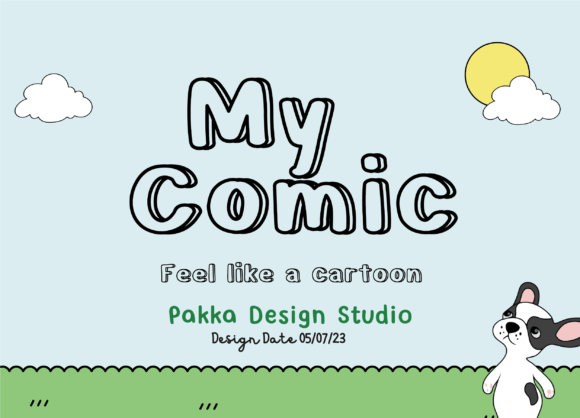
Introducing My Comic Font, the best font for fun flyers and more! Created by the talented Pakka Design Studio, this decorative font is a true gem that will captivate and engage your audience.
With an outline doodle style, My Comic Font effortlessly merges the simplicity of hand-drawn doodles with the whimsical essence of comic books. Each letter looks like it was sketched with playful outlines, giving your designs a fun and carefree vibe that is hard to resist.
This font truly embodies the adventurous and lighthearted spirit of comics. It takes you back to a world filled with colorful characters and witty dialogue, instantly transporting your audience to a place of excitement and imagination.
But it doesn't stop there - My Comic Font also adds a touch of charm and humor to any design it graces. Whether you're creating comic strips, speech bubbles, or anything that aims to evoke a sense of comic book magic, this font is the perfect choice.
Imagine the impact this font will have on your flyers! It will instantly catch the eye of your target audience, drawing them in with its unique and captivating style. It's not just a font, it's a storytelling tool that sparks curiosity and invites your audience to engage with your message.
And let's not forget about the power of emotions. My Comic Font has the ability to evoke joy, nostalgia, and a sense of playfulness in anyone who lays eyes on it. It's like a breath of fresh air, injecting life and personality into your designs.
So why settle for ordinary when you can have extraordinary? Take your designs to the next level with My Comic Font and unleash the full potential of your creativity. Stand out from the crowd, leave a lasting impression, and make your message truly unforgettable.